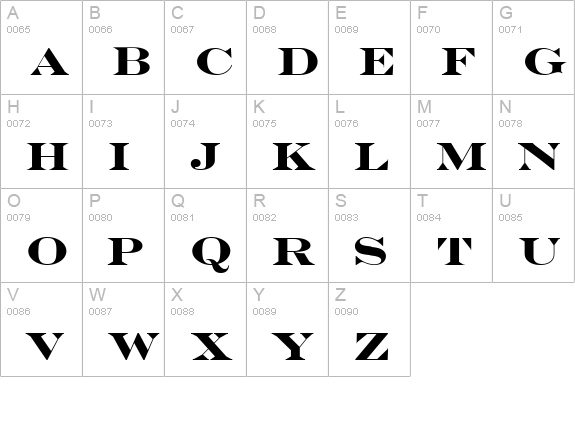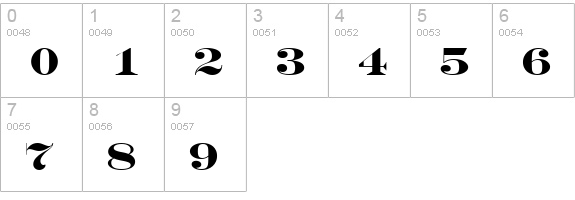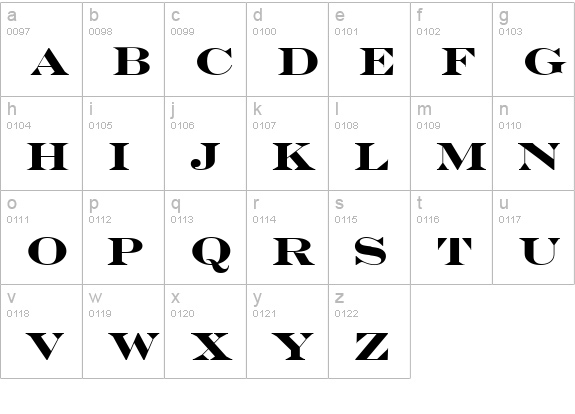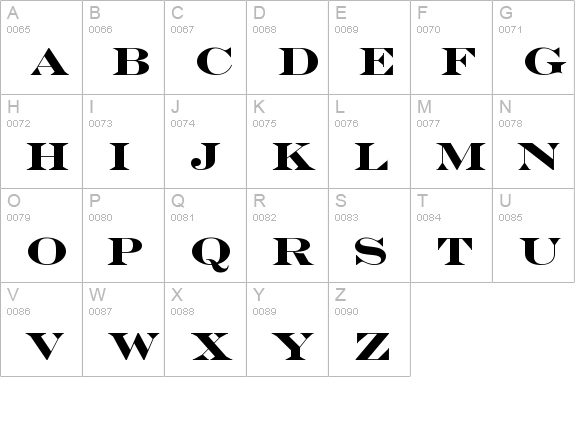
Engravers Bold Font Details
Engravers Bold is a strong, high-contrast variant in the Engravers typeface family \xE2\x80\x94 well suited to headlines, attention-grabbing titles, and strong calls-to-action.
Engravers Bold font is a classic and timeless typeface that exudes elegance and sophistication. With its bold and distinct strokes, this font is perfect for creating eye-catching designs that demand attention. Whether used for headlines, logos, or invitations, Engravers Bold adds a touch of refinement to any project. What sets Engravers Bold font apart is not only its striking appearance but also the fact that it is available for free download at FontsMarket.com. This means that you can easily access this high-quality font without any cost, making it a valuable addition to your font collection. Don't miss out on the opportunity to elevate your designs with Engravers Bold font today.